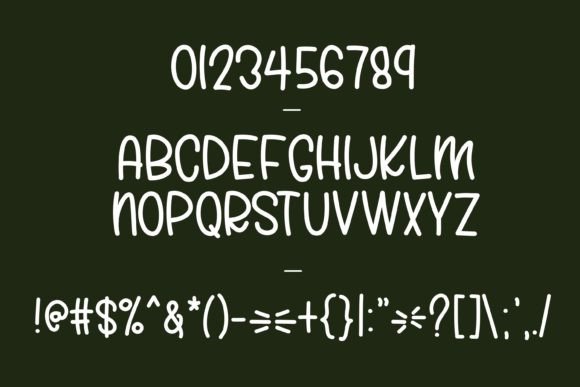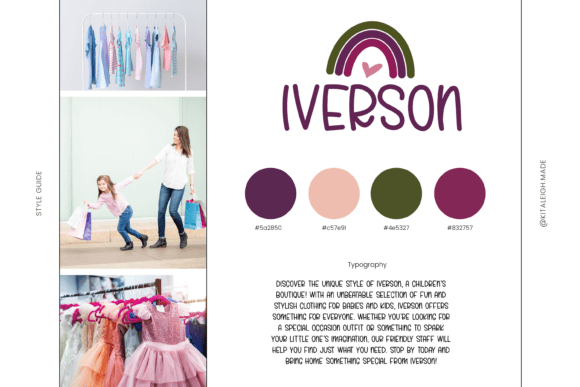
Introduction to Jolly Elf Font
As a designer, have you ever been stuck on a creative project, desperately searching for that one perfect font to bring your idea to life? I know I have. It was during one such moment that I stumbled upon the Jolly Elf Font – a playful and hand-lettered sans-serif font that instantly brightened up my design.
With its fun and quirky style, the Jolly Elf Font brings a cheerful and whimsical vibe to any design, making it perfect for festive projects, children’s projects, holiday cards, invitations, and branding. Its versatility and high quality make it a valuable addition to any designer’s toolkit, especially when paired with a transparent background for a seamless look.
Whether you’re looking for a free download or a design resource to elevate your next creative project, the Jolly Elf Font is sure to bring a touch of joy and warmth to your designs.
Key Features of Jolly Elf Font
- High-quality, hand-drawn design perfect for creative projects, including Christmas and winter-themed artwork.
- Features a unique, playful style that’s perfect for adding a touch of whimsy to your design project.
Honest Review: Jolly Elf Font
I recently had the opportunity to work with the Jolly Elf Font on a creative project, and I must say it was a delightful experience. The font is a great addition to any design resource, offering a unique and playful touch.
- ✨ High quality: The font is crisp and clear, making it perfect for both digital and print projects.
- ⚠️ Limited character set: The font only includes a basic set of characters, which may not be sufficient for more complex projects.
- ⚠️ Not ideal for body text: The font’s playful nature makes it better suited for headlines and titles rather than body text.
Overall, I’m impressed with the Jolly Elf Font. It’s a great design resource for anyone looking to add a touch of whimsy to their project. While it may have some limitations, its high quality and free download make it a great choice for many designers.
Common Use Cases for Jolly Elf Font
The Jolly Elf Font is commonly used in creative projects, such as holiday cards, party invitations, and gift tags. It’s also a great resource for designers who want to add a festive touch to their designs without sacrificing quality or readability.